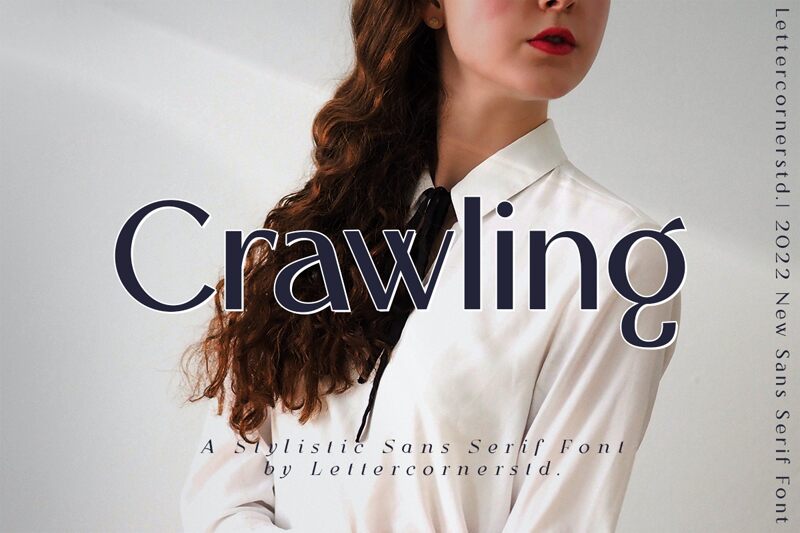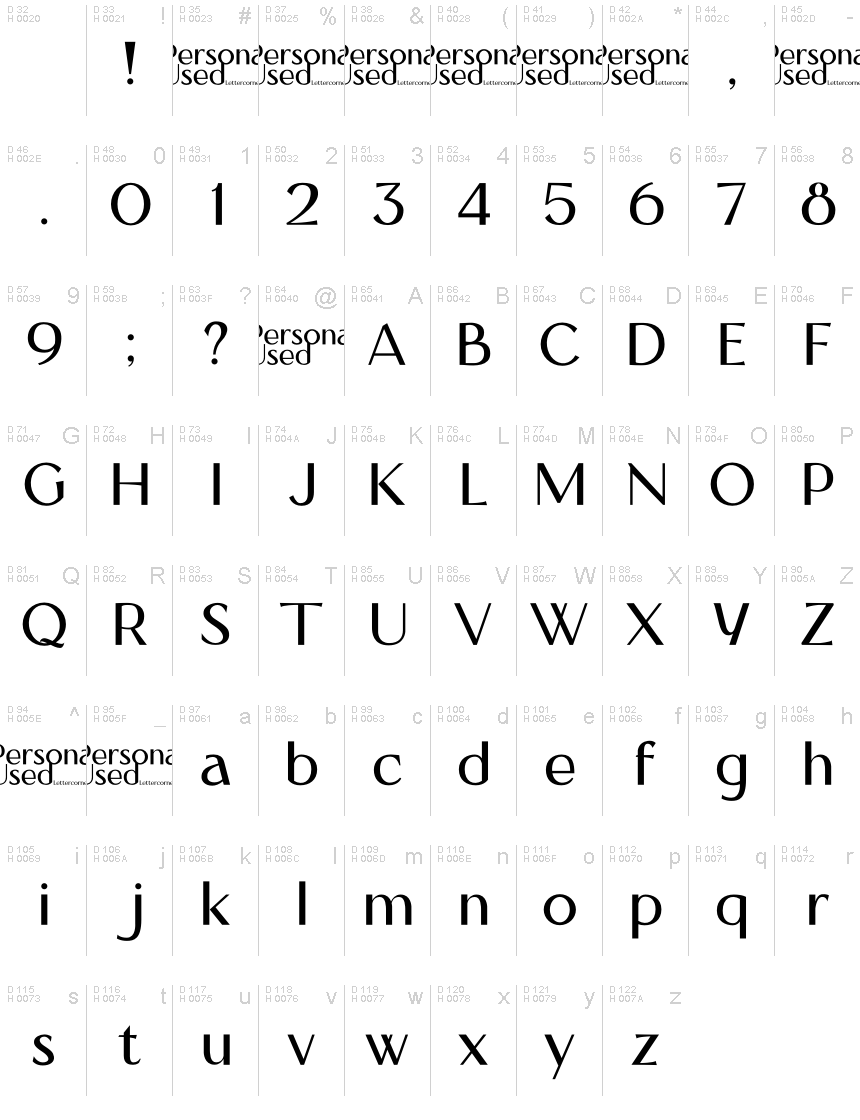
Crawling Personal Used
Crawling, a creation by Mocha Frappuccino, is a sans serif font with a twist of the unconventional. Its elongated shapes and playful rhythm give it a dynamic, almost whimsical flair that catches the eye. The elegant yet quirky design of Crawling makes it perfect for creative projects that require a touch of personality without sacrificing readability.
With its distinctive charm, Crawling is well-suited for branding materials, editorial headlines, and any digital space yearning for character. This font invites curiosity and engagement, ensuring that words not only convey messages but also capture imaginations.